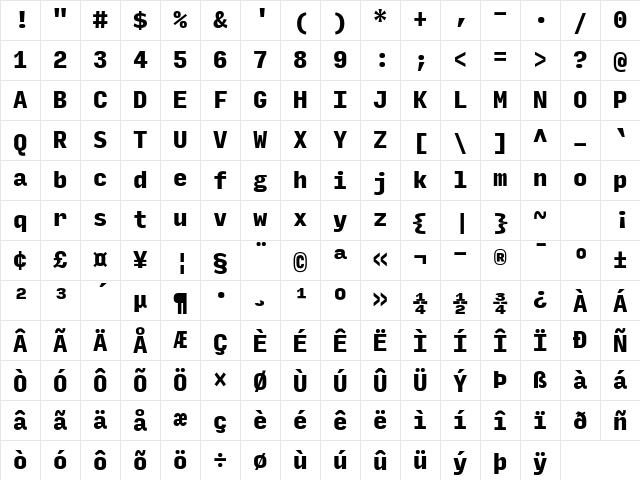
Input Mono Narrow Black Free Font
Input Mono Narrow Black
Foundry: David Jonathan Ross and The Font Bureau
Designer: David Jonathan Ross
Design Context for Input Mono Narrow
Input Mono Narrow uses fixed-width spacing throughout, giving it the structured, systematic character associated with coding environments and technical documentation.